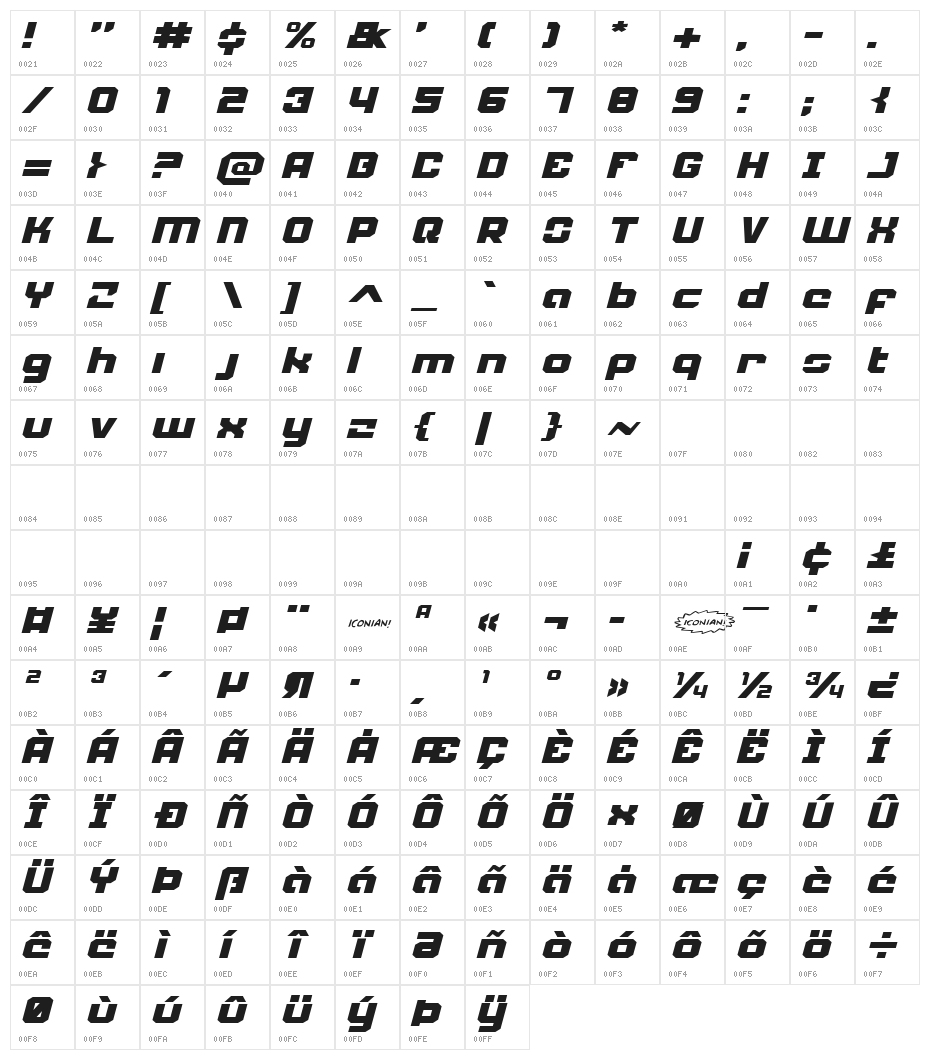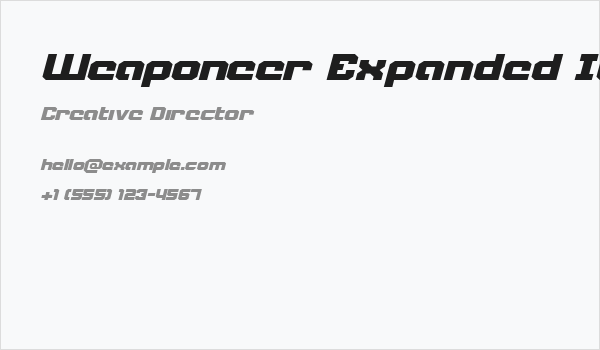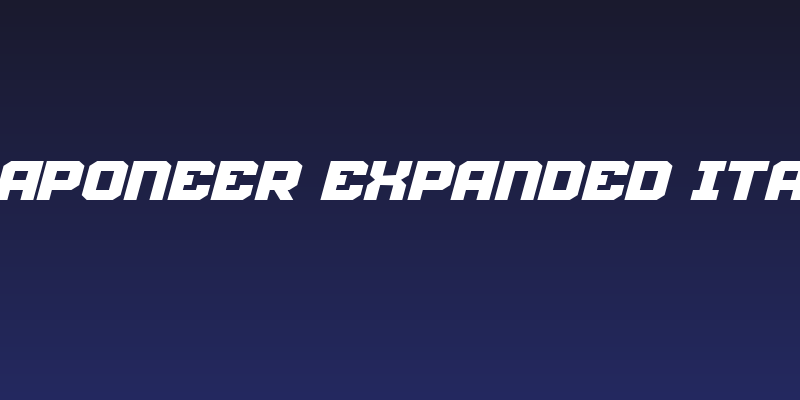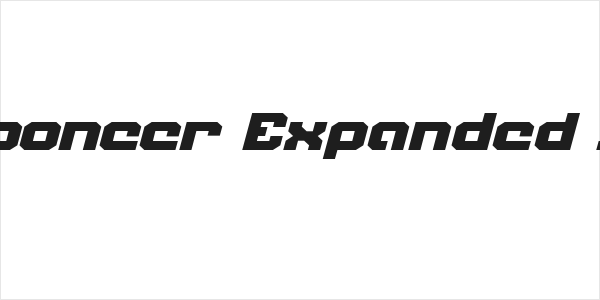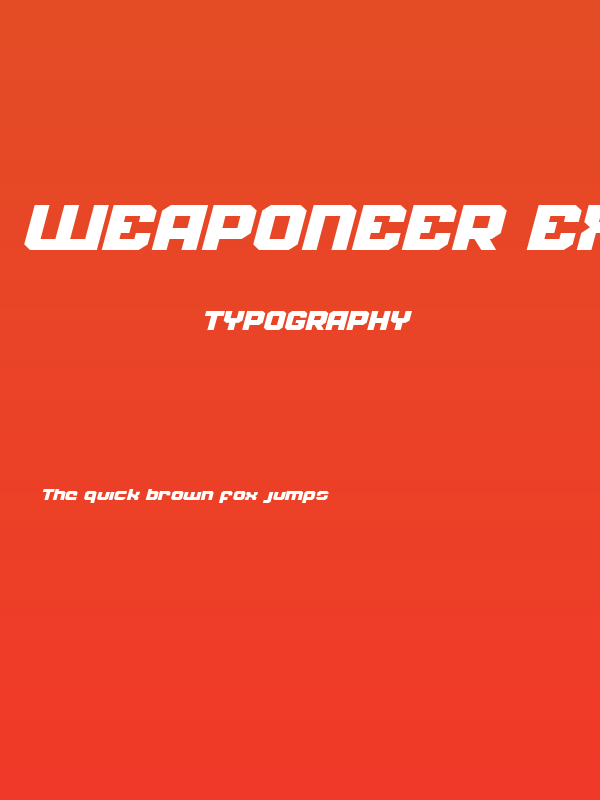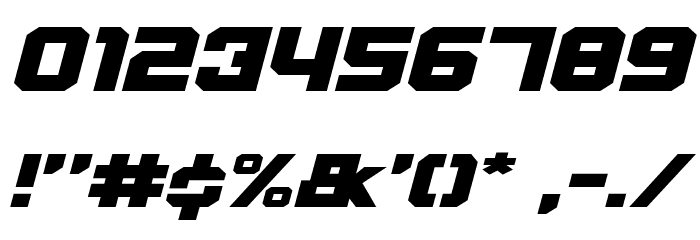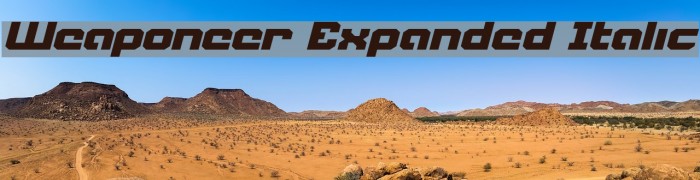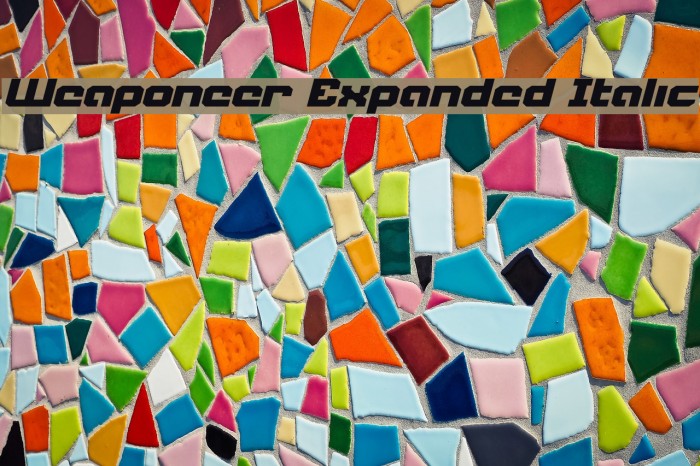
Weaponeer Expanded Italic Font
Weaponeer Expanded Italic Description
This font features a bold, angular design with a futuristic and dynamic appearance. The characters are expanded and italicized, giving them a sense of motion and energy. The sharp edges and geometric shapes create a strong visual impact, making it suitable for attention-grabbing headlines or titles. The uppercase and lowercase letters maintain a consistent style, while the numerals and special characters complement the overall design. The font's unique style is both modern and assertive, ideal for projects that require a bold statement.
| Proposed Projects | Ideal for sci-fi themed designs, video game titles, posters, and branding that requires a strong, modern look. |